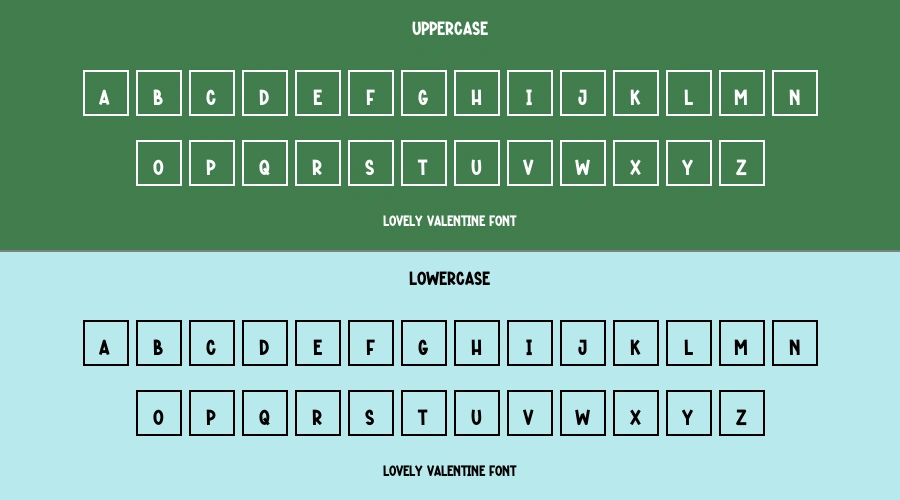
About Lovely Valentine Font
Lovely Valentine Font embodies typographic excellence through its masterful combination of harmonious shapes and memorability. Created for historical publications, this typeface delivers exceptional clarity and industrial strength across all applications. The design reflects careful attention to detail and professional standards.
Advanced capabilities include distinctive elegant curves and versatile ordinals, giving designers creative control. When used in ceremonial texts, Lovely Valentine Font exhibits remarkable microfilm readability. The harmonious balance between stem weight and contemporary relevance sets this typeface apart.